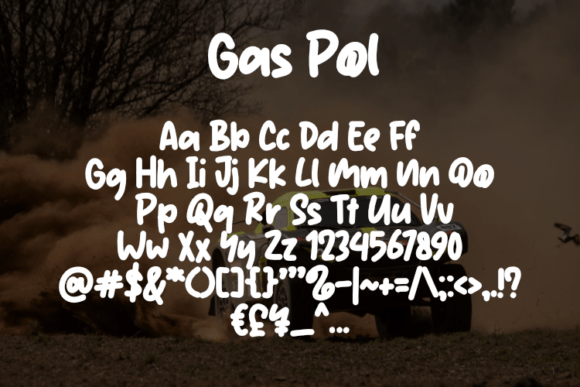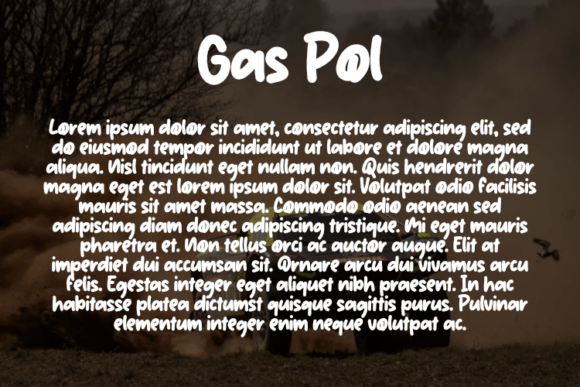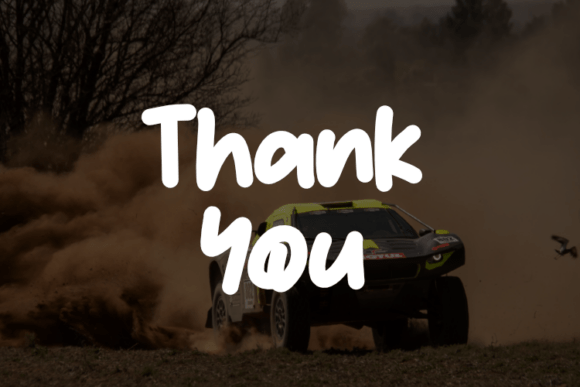
Introduction to Gas Pol Font
Remember the thrill of working on a creative project, and finally finding the perfect font to bring it all together? That’s exactly what happened when designers discovered the Gas Pol Font, a modern and elegant typeface designed for flexibility and excellent readability across a wide range of media.
Key Features of Gas Pol Font
- High-quality design resource ideal for creative projects, including graphic design, digital art, and more.
- Each character is carefully crafted for high-resolution display, making it perfect for print and digital projects.
- Unique, eye-catching design that can add a professional touch to any creative project.
Honest Review: Gas Pol Font
I recently stumbled upon the Gas Pol Font, and I must say it’s been a game-changer for my creative projects. This font is a design resource that truly shines with its high-quality design and versatility.
What works well about the Gas Pol Font is its unique aesthetic. The transparent background allows for seamless integration into any design, making it a perfect fit for various creative projects. The font’s modern and sleek design makes it an excellent choice for digital applications, from social media graphics to presentations.
Here are some of the key features that I appreciate about the Gas Pol Font:
- High-quality design that’s perfect for digital applications
- Some users may find the font’s unique aesthetic too experimental or avant-garde
- The font may not be suitable for traditional print media or conservative design projects
- ⚠️ Limited character set, which may require additional font pairing for extensive text content
Overall, I’m thoroughly impressed with the Gas Pol Font. Its unique design, high-quality aesthetic, and free download make it an excellent addition to any designer’s toolkit. Whether you’re working on a creative project or just need a versatile font for your design arsenal, the Gas Pol Font is definitely worth checking out. ✨
Tips for Getting the Most Out of Gas Pol Font
To get the most out of the Gas Pol Font, use it in conjunction with a transparent background to create a clean and modern design. Experiment with different font sizes and styles to add visual interest to your project. Consider combining the Gas Pol Font with other design resources, such as graphics and images, to create a unique and eye-catching design.
Common Use Cases for Gas Pol Font
The Gas Pol Font is a versatile design resource that can be used in a variety of creative projects, including branding, marketing materials, and digital graphics. Its high-quality design makes it an ideal choice for presentations, documents, and other visual materials that require a professional look.